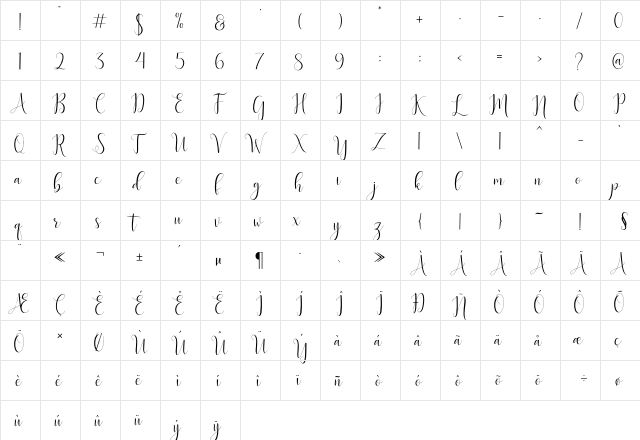
Delight Script Regular Font Preview
Design Context for Delight Script Typeface
Delight Script brings a calligraphic fluidity to the page — its connecting strokes and expressive curves give it an unmistakably human quality. The delicate stroke weight brings airiness and refinement to layouts.
Font Pairing: Combine Delight Script with a simple geometric sans for maximum contrast — the tension between flowing curves and clean structure is a classic typographic pairing.
Pro Tip: Pair Delight Script with a clean sans-serif for supporting text. The contrast between fluid script and geometric structure creates an elegant typographic hierarchy.